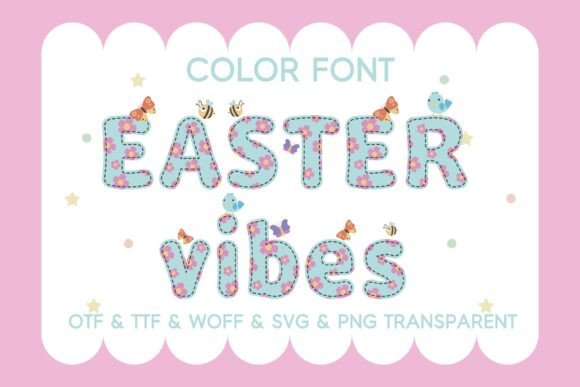
Easter Vibes Font: Elevate Your Designs with a Festive Touch
As the Easter season approaches, designers and crafters are on the lookout for the perfect font to infuse their projects with a festive spirit. Look no further than the Easter Vibes Font, a delightful and versatile typeface designed to bring a touch of Easter magic to your creations. In this article, we’ll dive into the features and benefits of Easter Vibes, exploring how it can transform your designs into mesmerizing masterpieces.
A Font for Every Project
Easter Vibes is more than just a font – it’s a design essential that can elevate a wide range of projects. Whether you’re working on:
- T-shirt designs
- Mug designs
- Digital designs
- Crafts
- Cards
- Any other creative project
Easter Vibes is the perfect companion to help you create stunning and festive designs. Its playful, yet elegant style is sure to captivate your audience and leave a lasting impression.
Why Choose Easter Vibes Font?
So, what sets Easter Vibes apart from other fonts? Here are just a few reasons why this font is a must-have for designers and crafters:
- Unique and festive style: Easter Vibes boasts a distinctive and captivating design that’s perfect for the Easter season.
- Versatility: Use Easter Vibes across a wide range of projects, from digital designs to crafts and cards.
Tips and Inspiration for Using Easter Vibes
Now that you’ve discovered the wonders of Easter Vibes, here are some tips and inspiration to get you started:
- Combine with other Easter-themed elements: Pair Easter Vibes with other festive design elements, such as Easter eggs, bunnies, or florals, to create a cohesive and eye-catching design.
- Experiment with colors: Take advantage of Easter Vibes’ color font capabilities and try out different color schemes to match your brand or design style.
- Use for seasonal promotions: Leverage Easter Vibes to create engaging and festive promotional materials, such as social media graphics, email headers, or landing pages.